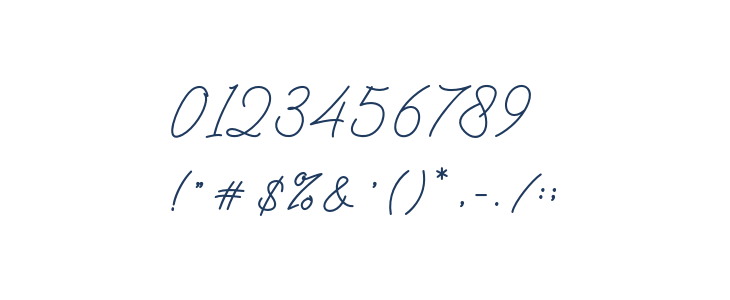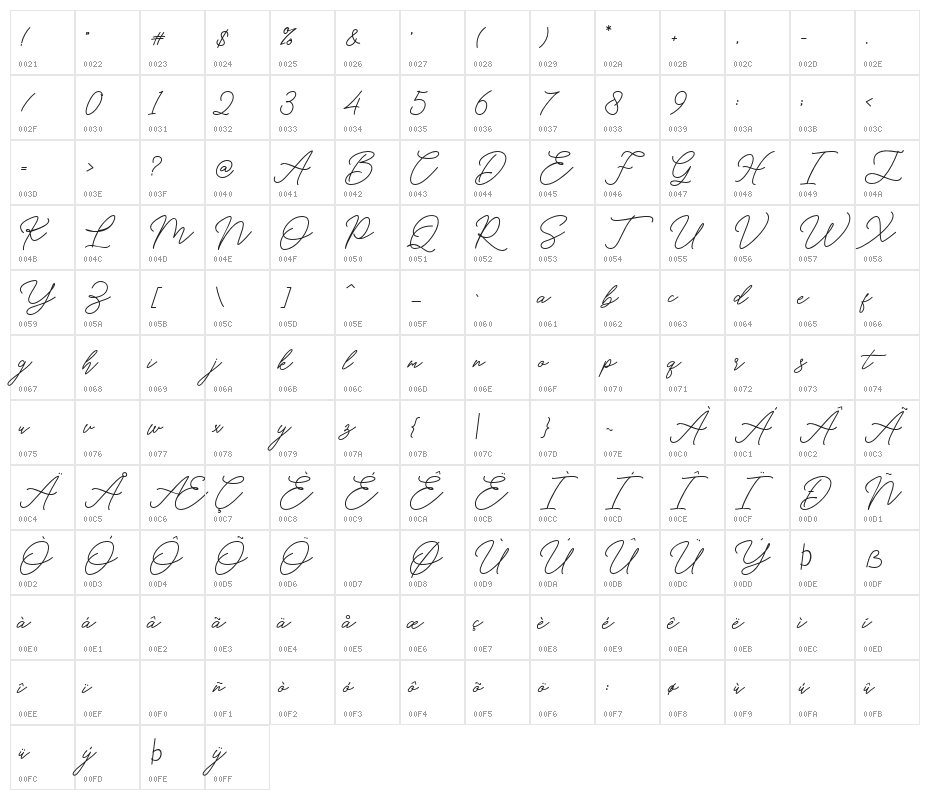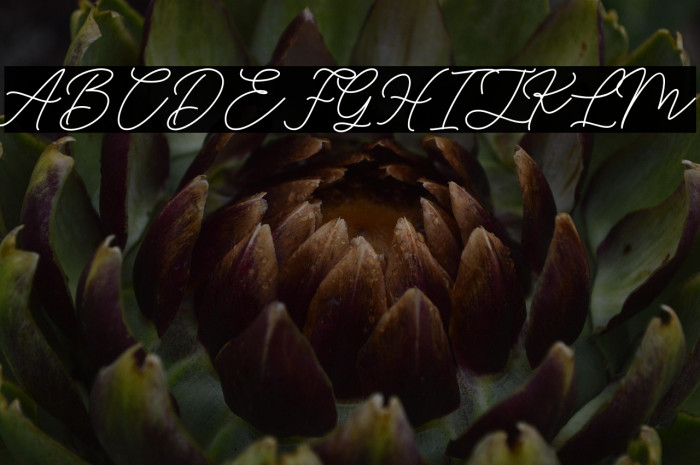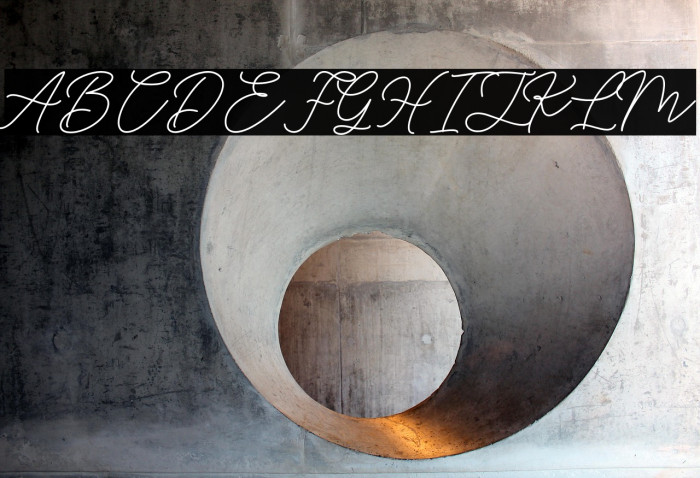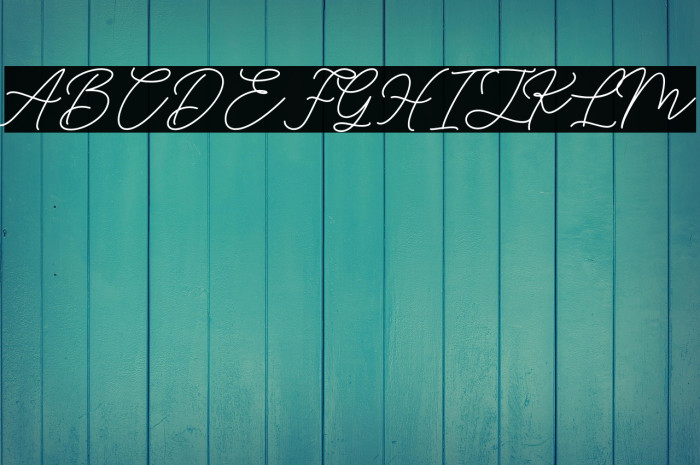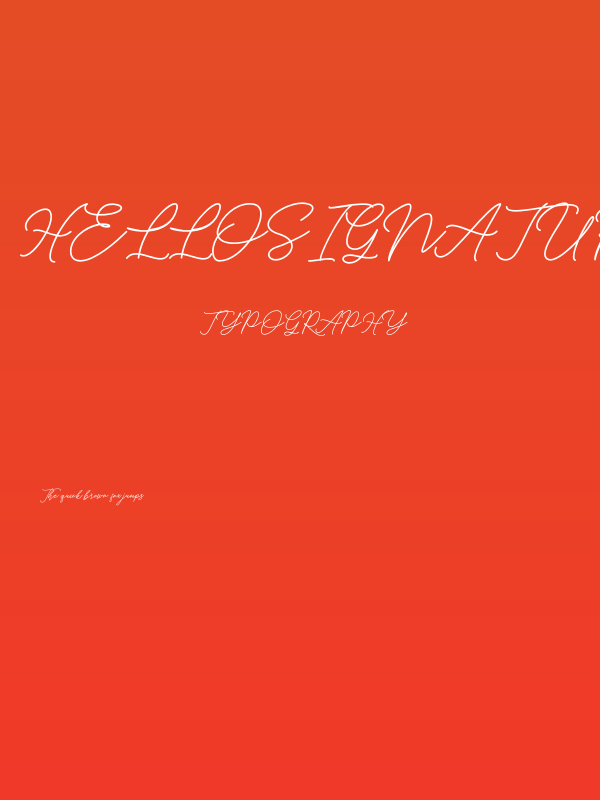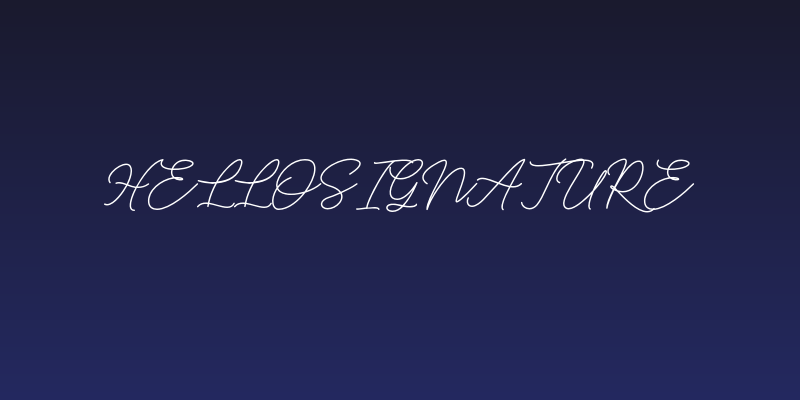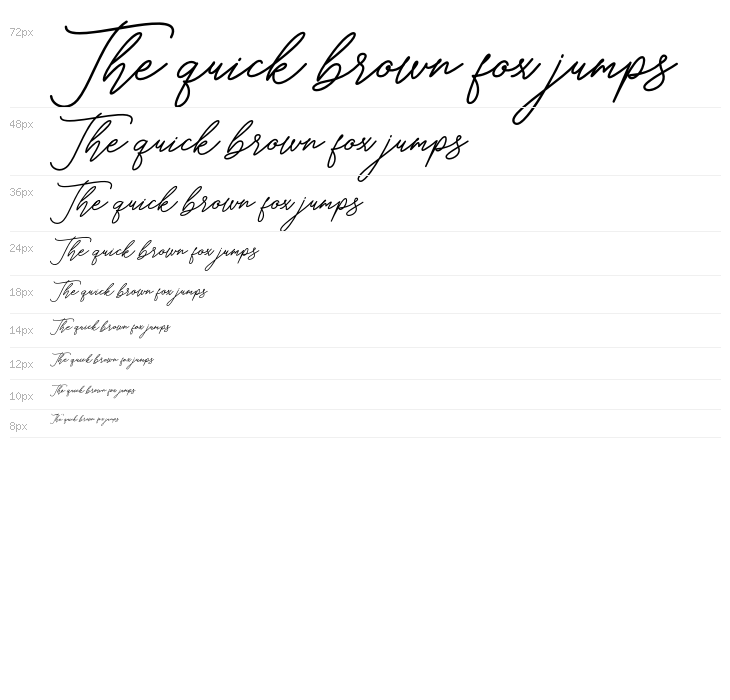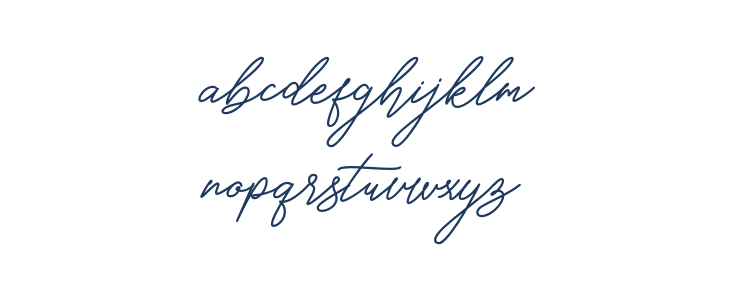
HelloSignature Font
HelloSignature Description
This font exudes elegance and sophistication with its fluid, cursive style. The characters are interconnected, mimicking the natural flow of handwriting. Each letter is crafted with smooth curves and delicate strokes, giving it a refined and graceful appearance. The uppercase letters are slightly more elaborate, while the lowercase letters maintain a consistent, flowing form. The numerals and special characters are designed to complement the overall script style, maintaining the same fluidity and elegance. This font is perfect for projects that require a personal touch, such as invitations, greeting cards, and branding materials.
| Overall Style | Elegant, Handwritten |
| Use Case | Logos, Invitations, Personal Branding |
| Proposed Projects | Ideal for wedding invitations, personal branding, greeting cards, and elegant packaging. |